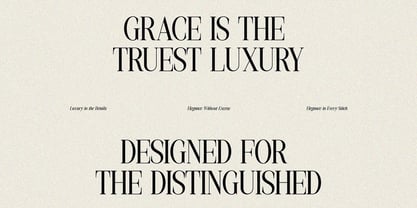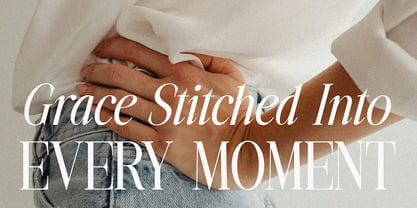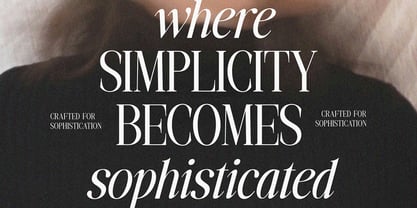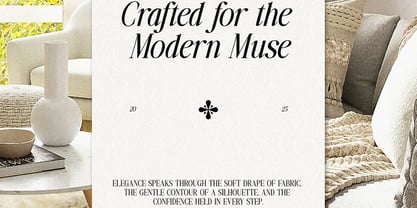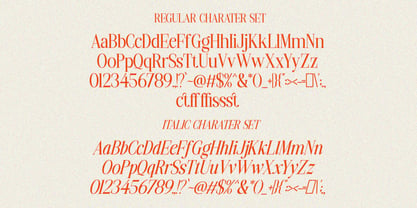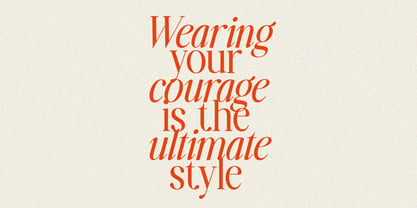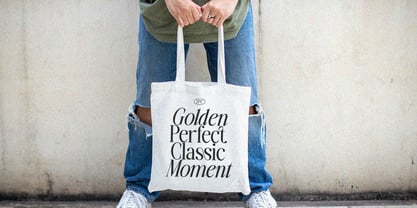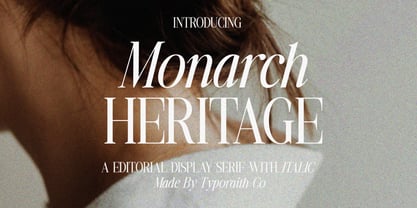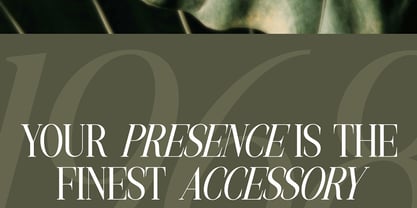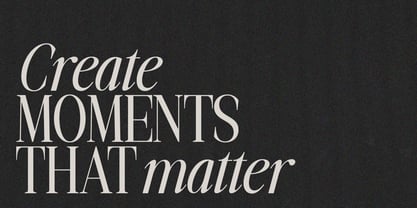
Monarch Heritage
by Typoraith Co
The Monarch Heritage Font Family was designed by Rendy Riyananda and published by Typoraith Co. Monarch Heritage contains 2 styles and family package options. More about this family
Monarch Heritage is an elegant and modern editorial display serif crafted with refined contrast and graceful curves. Designed to bring a sense of luxury, timelessness, and sophistication, this typeface is perfect for designers who want to elevate their visual storytelling. With its distinctive Regular and Italic styles, Monarch Heritage offers a dynamic and high–end typographic experience—ideal for magazine titles, premium branding, packaging, wedding designs, creative portfolios, and fashion-forward posters. Features: Monarch Haritage Files Includes Regular & Italic Full Character Set Refined, high-contrast letterforms Smooth curves and premium aesthetics Perfect kerning & clean proportions Ready for logos, branding, editorial design, fashion, and modern layouts Bring a touch of classic modern elegance to your projects with Monarch Heritage — a typeface that blends editorial charm with contemporary refinement.
Designers: Rendy Riyananda
Foundry: Typoraith Co